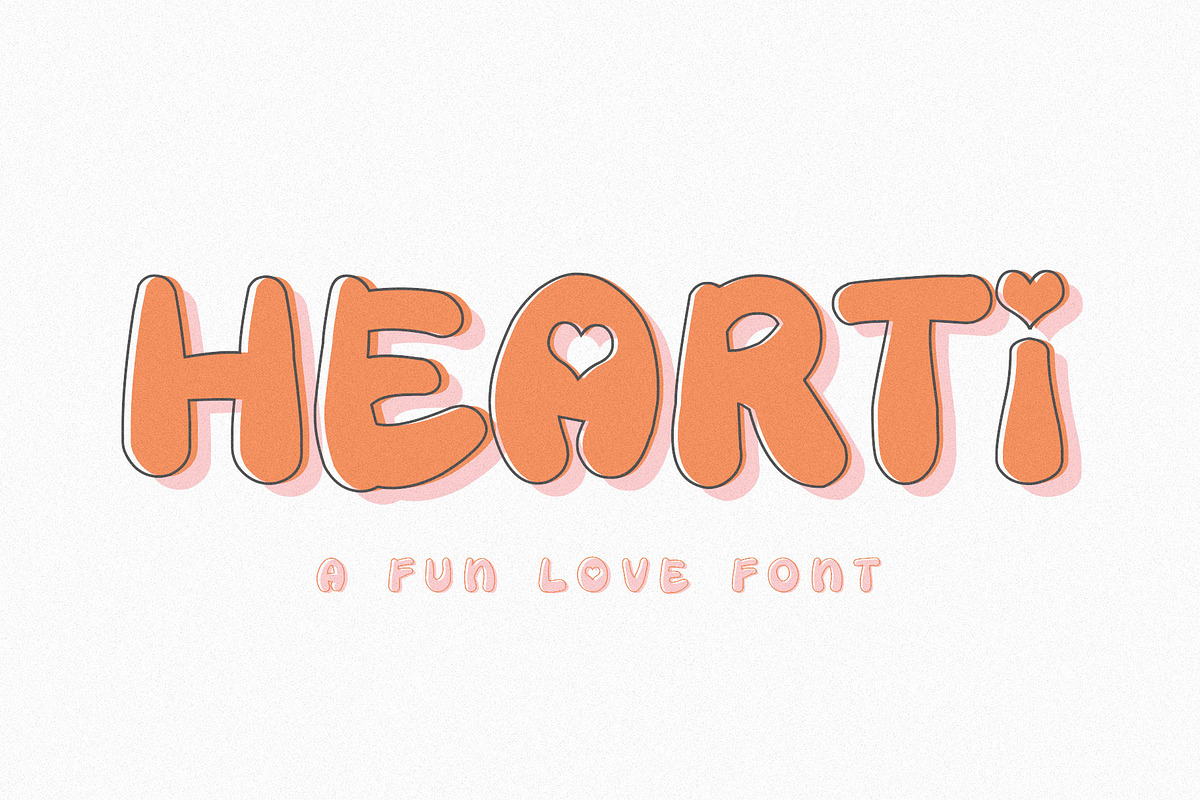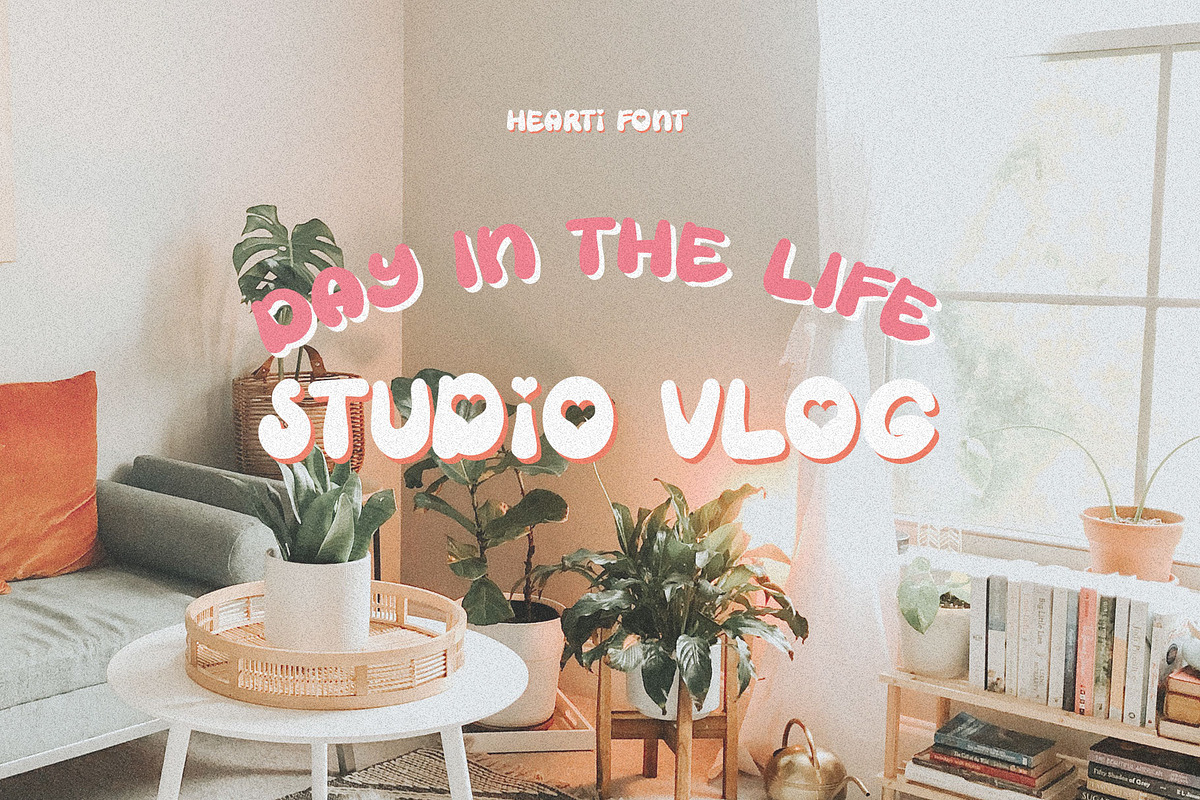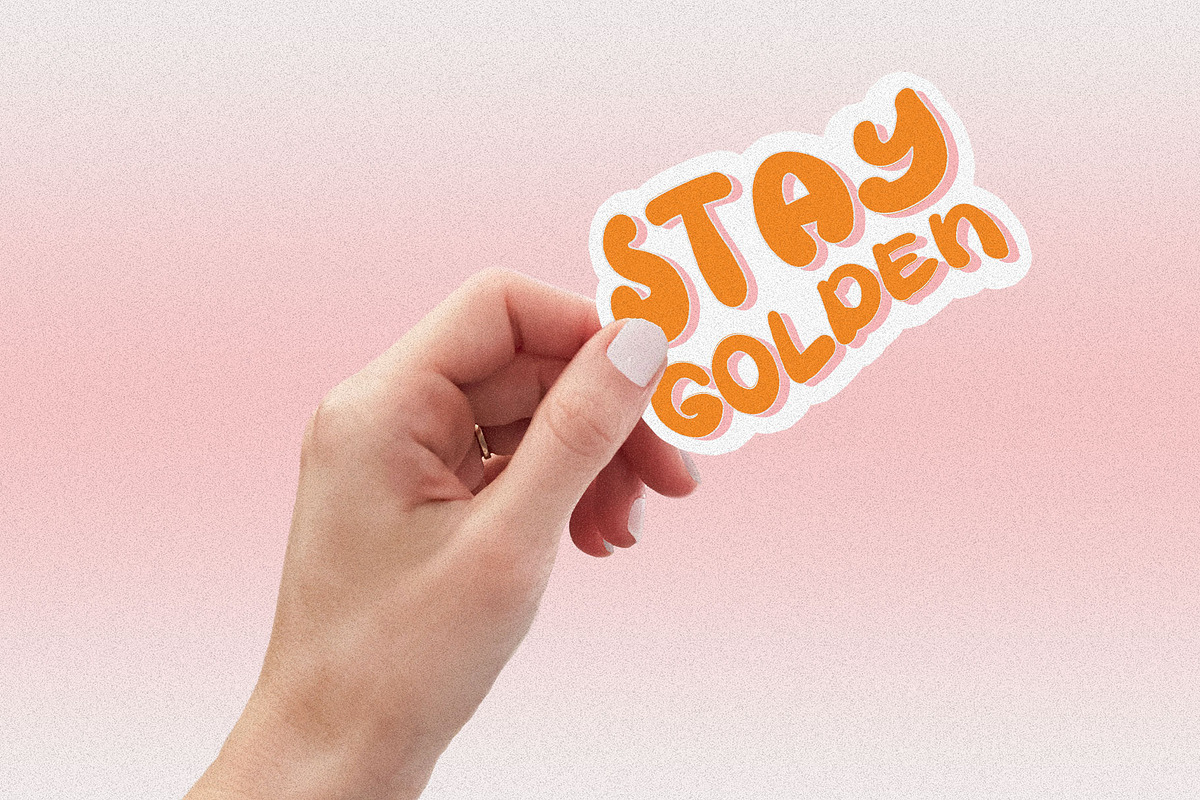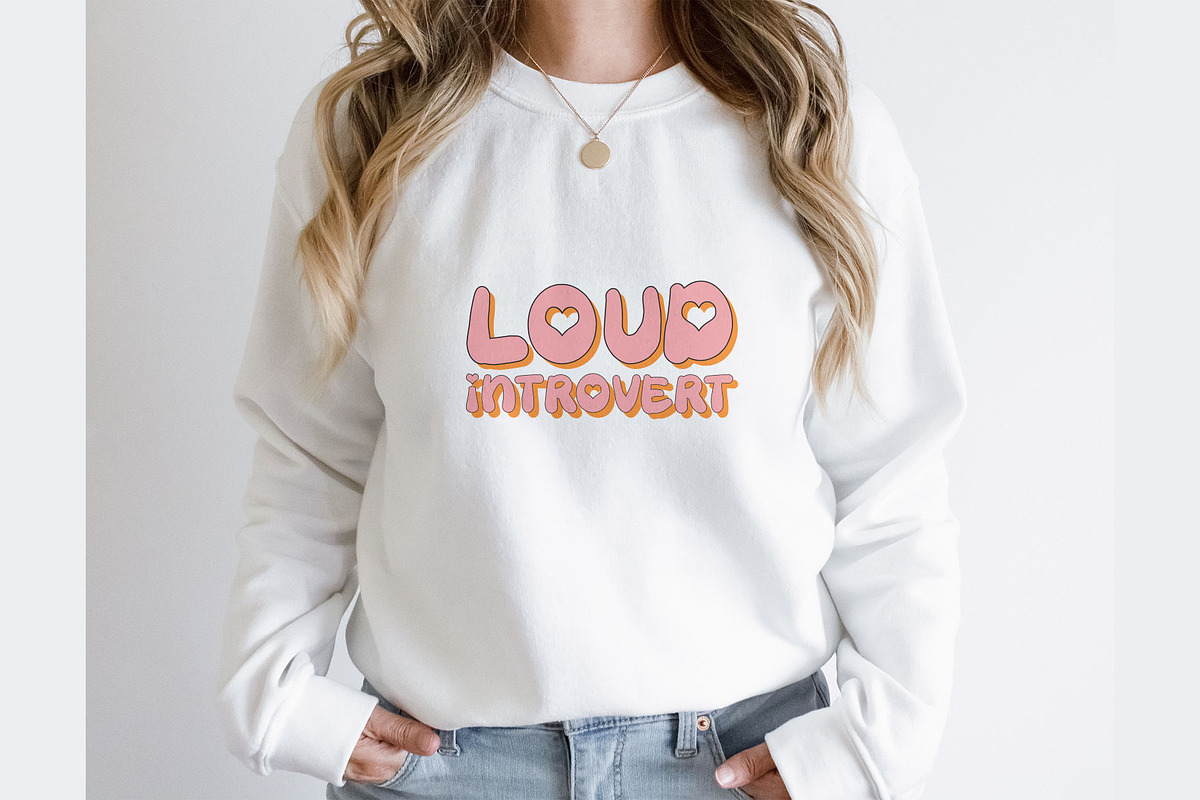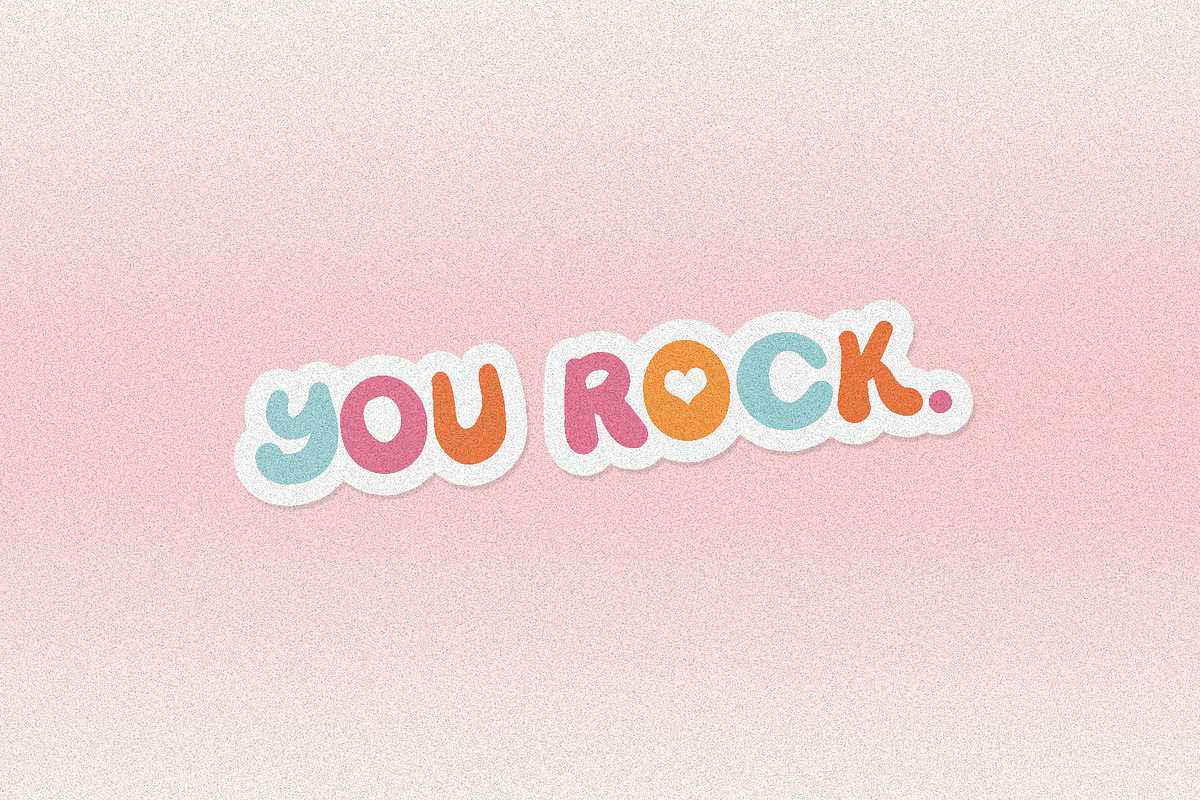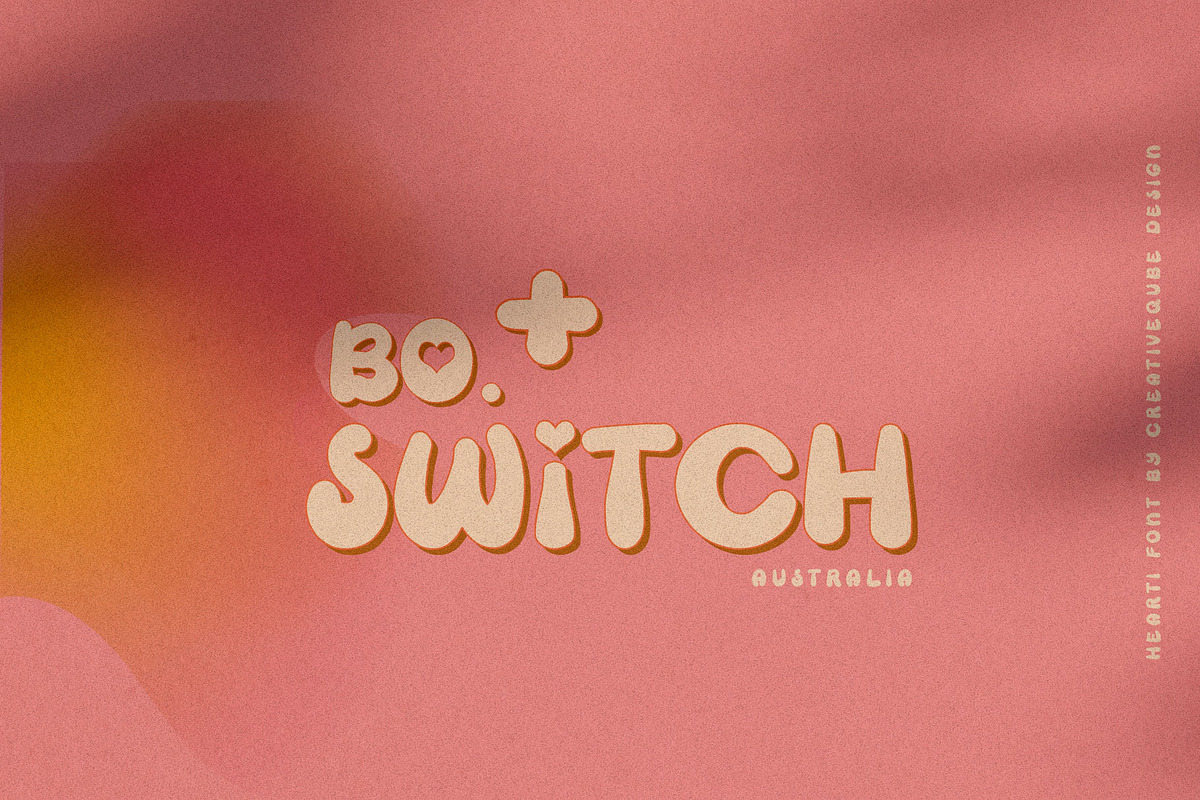
Hearti Retro Bubble Font
Hearti Font
A hand-drawn, fun retro bubbly font with heart features on some alternate letters!
Hearti comes in 2 font styles, regular and outline. Each font includes heart alternate ligatures for the letters A, B, D, I, O, P, and Q.